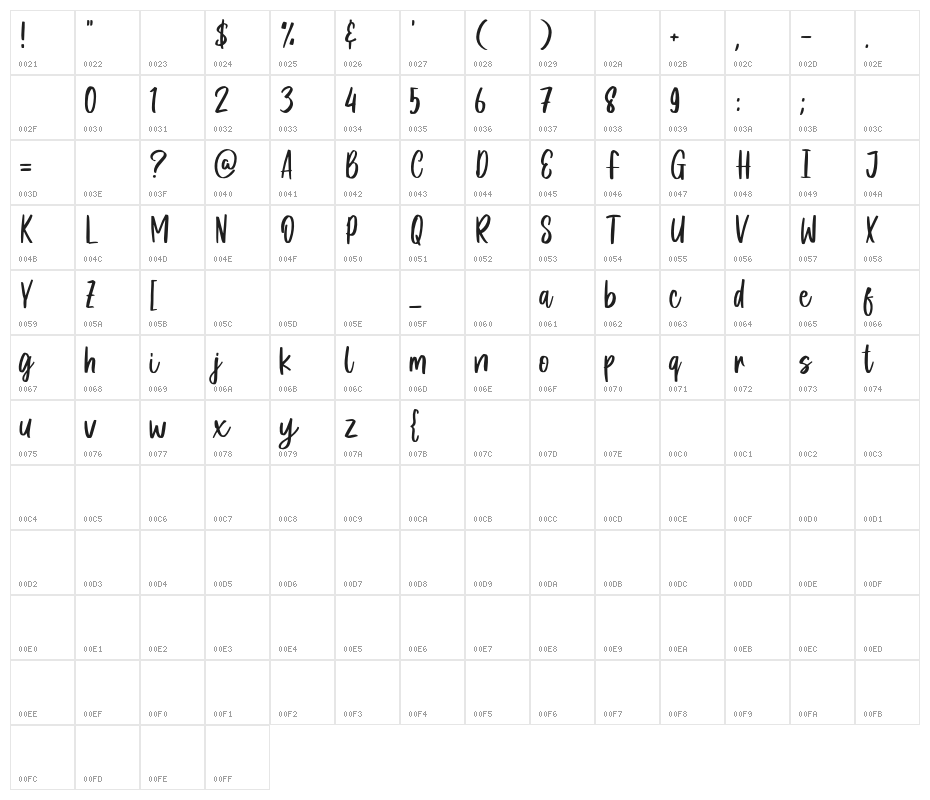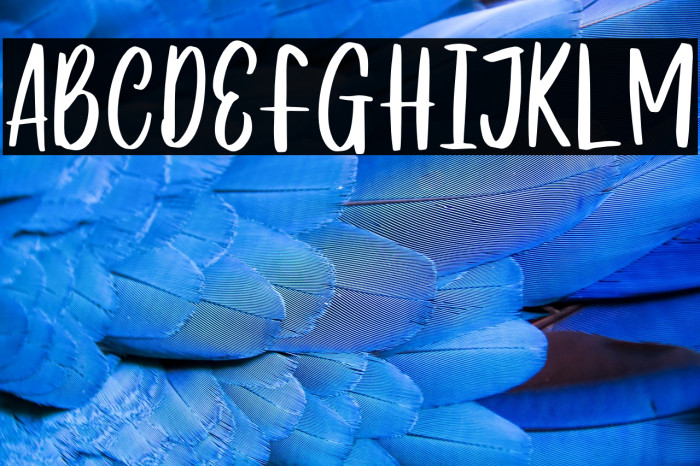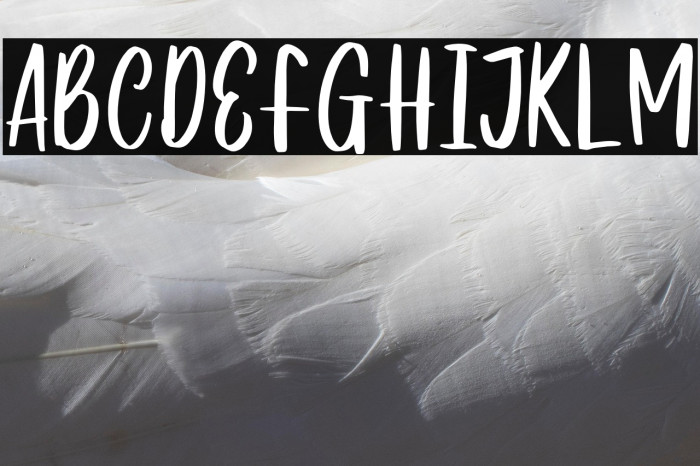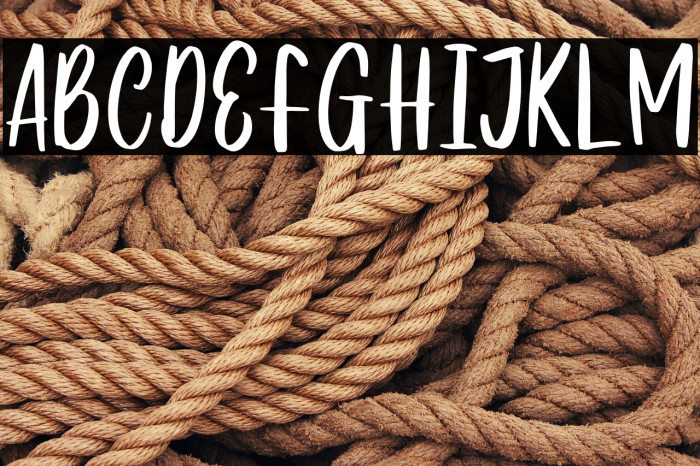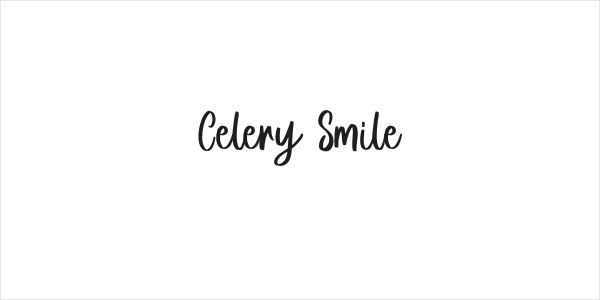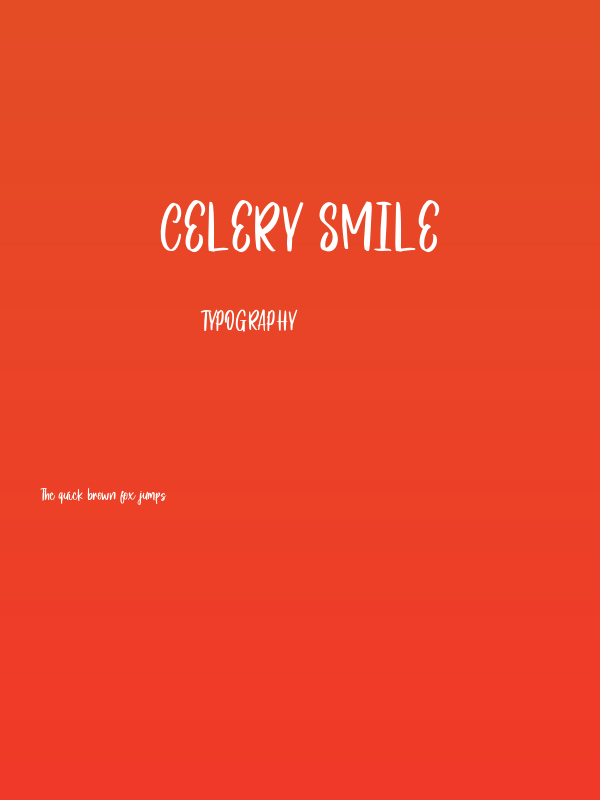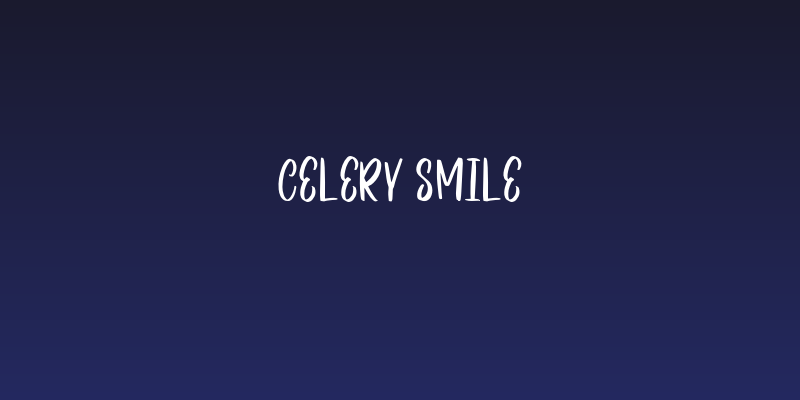
Celery Smile Font
Celery Smile Description
This font features a playful and energetic handwritten style, characterized by its bold and slightly irregular strokes. The letters have a casual, informal appearance, with a slight slant that adds to its dynamic feel. The uppercase and lowercase letters are well-balanced, maintaining a consistent flow throughout. The numbers and special characters follow the same lively aesthetic, making the font versatile for various creative applications. Its unique charm is perfect for projects that require a personal touch, such as invitations, greeting cards, or playful branding.